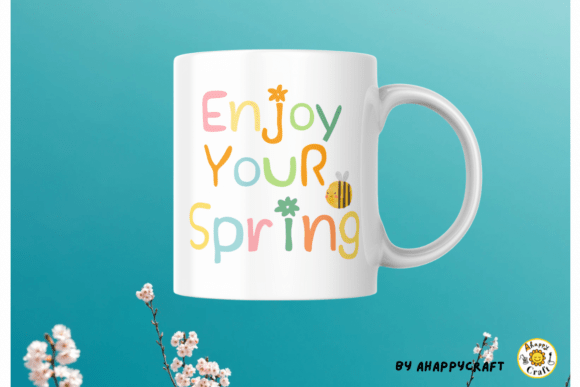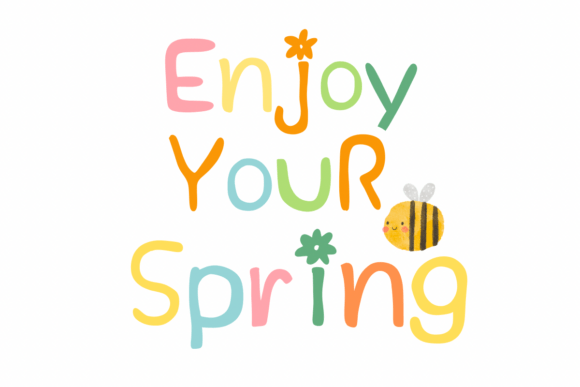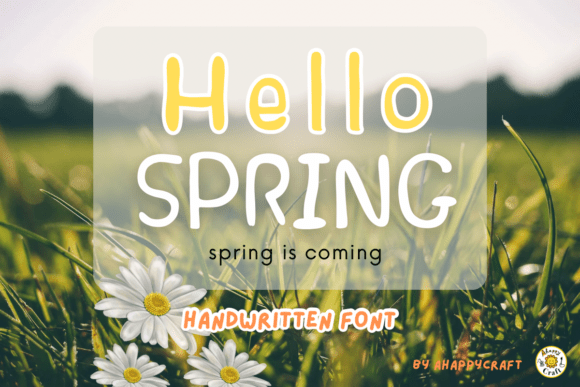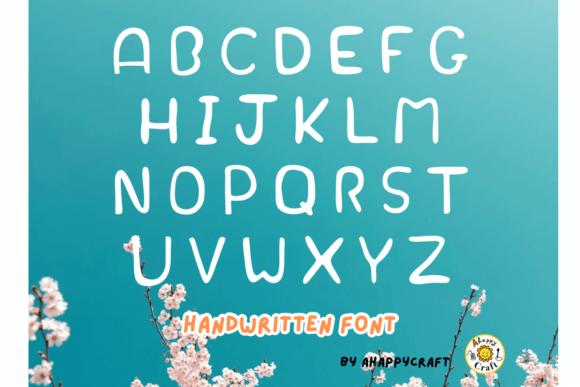
Hello Spring Font
About the Hello Spring Font
Meet Hello Spring Font, a stunning font that brings a touch of elegance and professionalism to any design. Doodle hello Spring Handwritten Font is a playful and charming typeface inspired by hand-drawn doodles. With its whimsical strokes and casual, handwritten feel, this font brings a lighthearted and joyful vibe to any project. Perfect for spring-themed designs, greeting cards, planners, stickers, logos, or anything that needs a soft, girly touch. Each letter is crafted with a touch of floral fun, making it ideal for crafters, small business owners, and creatives who love cute and cozy vibes.
Hello Spring Font shines in projects requiring a lighthearted and approachable feel. Ideal applications include short headlines, branding for artisan businesses, packaging for gifts or confectionery, and social media graphics. It’s less suitable for body text or lengthy content due to its informal nature and potential for reduced readability.
For optimal pairings, consider pairing Hello Spring with a clean sans-serif like Lato for a balanced contrast, or a delicate serif like Playfair Display for a touch of elegance. A simple geometric sans-serif would also create a modern juxtaposition. Avoid pairing with overly bold or ornate fonts which could clash with its playful nature.
The font’s core personality is undeniably cheerful and friendly, lending itself to brands focused on handmade goods, springtime events, or businesses aiming for a youthful and approachable image.